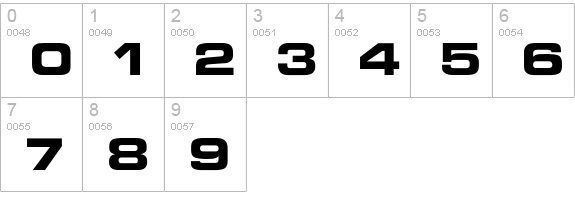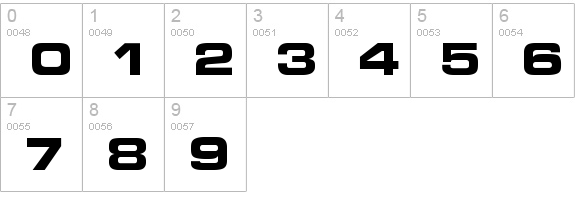
MicroTechnicExtBold Font Details
MicroTechnicExtBold is a modern and sleek font that exudes sophistication and professionalism. Its bold and angular design makes it stand out, perfect for adding a touch of contemporary style to any project. Whether used for logos, headings, or other design elements, MicroTechnicExtBold commands attention and makes a statement. The best part is that this font is available for free download at FontsMarket.com. You can easily access and start using MicroTechnicExtBold in your designs to elevate them to the next level. Don't miss out on this fantastic opportunity to enhance your projects with this striking and eye-catching font.